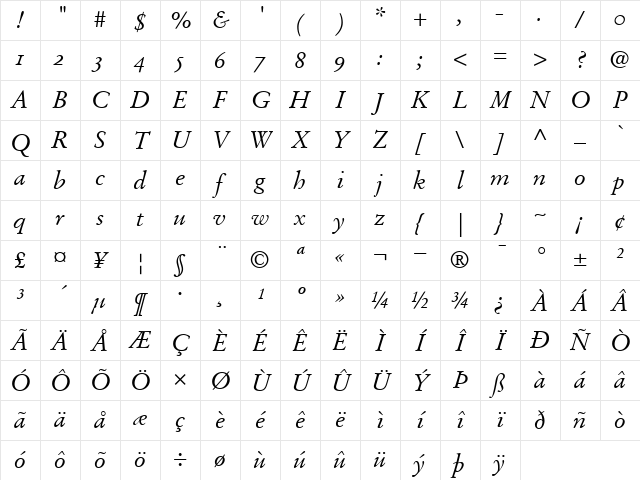
StempelGaramondOldstyleFigures carries the refined structure of traditional serif typography, with bracketed terminals and considered proportions that communicate credibility and craft. The slanted form adds forward momentum and visual energy.
Pro Tip: Use StempelGaramondOldstyleFigures for editorial body copy and considered headline work. Pair with a neutral sans for UI elements or captions to create a classic hierarchy.